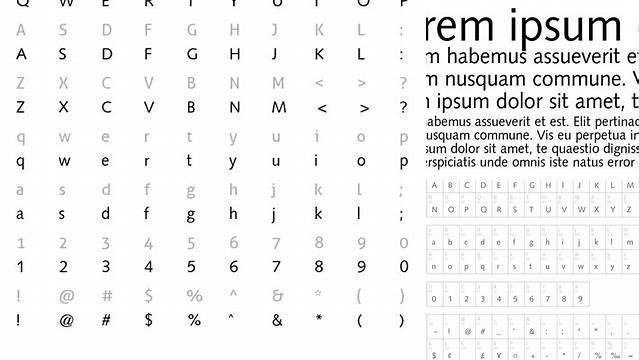
CG Symphony Regular: Free Font Download Guide
Hey guys! Ever stumbled upon a font that just clicks? That's how I felt when I first saw CG Symphony Regular. It's clean, it's elegant, and it's super versatile. If you're on the hunt for a font that can elevate your designs, you've come to the right place. Let's dive into everything you need to know about CG Symphony Regular font free download.
What is CG Symphony Regular Font?
Let's start with the basics. CG Symphony Regular is a typeface known for its clarity and modern aesthetic. It's part of a larger font family, but the Regular variant is particularly popular for its readability and balanced appearance. Whether you're working on a website, a print project, or a digital graphic, this font can bring a touch of sophistication. Think of it as the little black dress of fonts – always in style and suitable for almost any occasion.
Why Choose CG Symphony Regular?
So, why should you pick CG Symphony Regular over the thousands of other fonts out there? Well, there are several compelling reasons. First off, its clean lines and balanced letterforms make it incredibly easy on the eyes. This is crucial, especially for body text where readability is paramount. Imagine reading a website with a cluttered or overly stylized font – not fun, right? CG Symphony Regular avoids that pitfall entirely. The font is versatile, too. It works equally well for headlines and body text, making it a go-to option for designers who want a cohesive look across their projects. This consistency is a major win, as it simplifies the design process and ensures a professional finish.
30. Final Thoughts on CG Symphony Regular